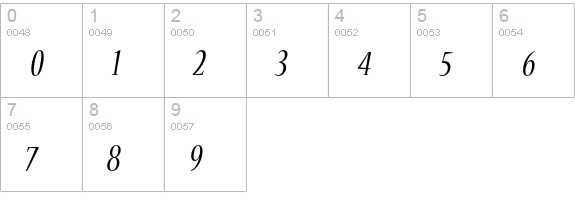
Nueva Std Condensed Italic Font Details
Nueva Std Condensed Italic is a distinctive, condensed-width, italic variant in the Nueva typeface family \xE2\x80\x94 well suited to design and typography projects.
Nueva Std Condensed Italic font is a sleek and modern typeface designed for sophisticated and contemporary designs. The italic style adds a touch of elegance and flair to any project, making it perfect for use in branding, advertising, and editorial layouts. With its condensed form, this font is ideal for saving space while still maintaining readability and impact. What sets Nueva Std Condensed Italic font apart is that it is not only stylish and versatile but also completely free to download. You can easily access this font for your creative projects at FontsMarket.com, where you can explore a wide range of high-quality fonts for all your design needs. Take advantage of this opportunity to enhance your work with the distinctive charm and professionalism of Nueva Std Condensed Italic font.